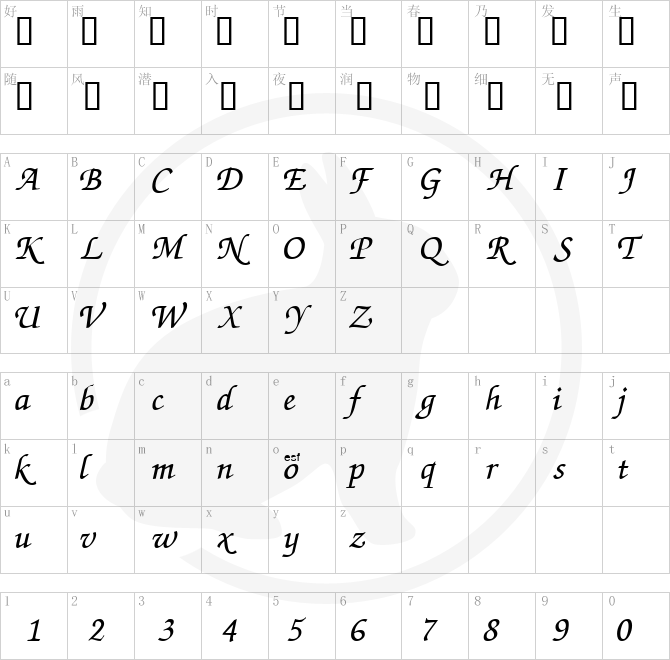
- Font Name:Zap Chance
Zap-Chance.ttf is a very beautiful artistic font, Zap-Chance.ttf is widely used in the design and printing of various books and pictures,Zap-Chance.ttf has a strong visual impact,Zap-Chance.ttf is a commonly used font in newspapers, magazines and books, and is used in posters, e-commerce Poster design, store design, logo design, font design and other fields.Zap-Chance.